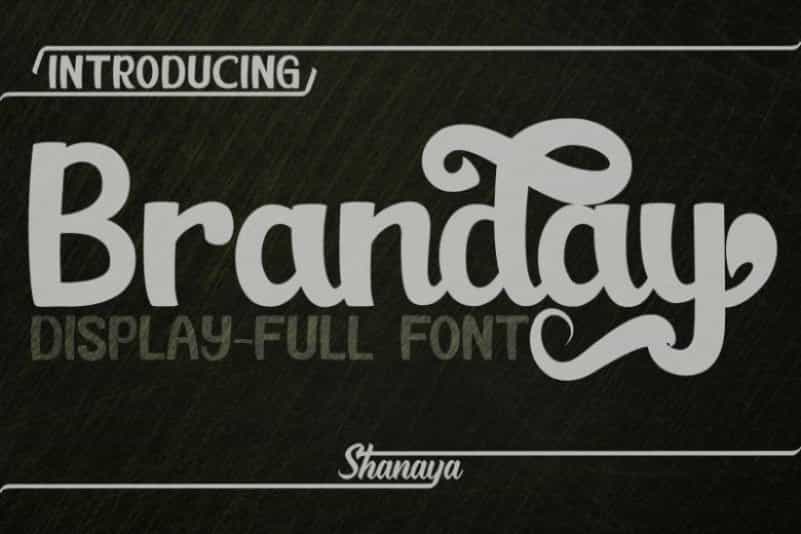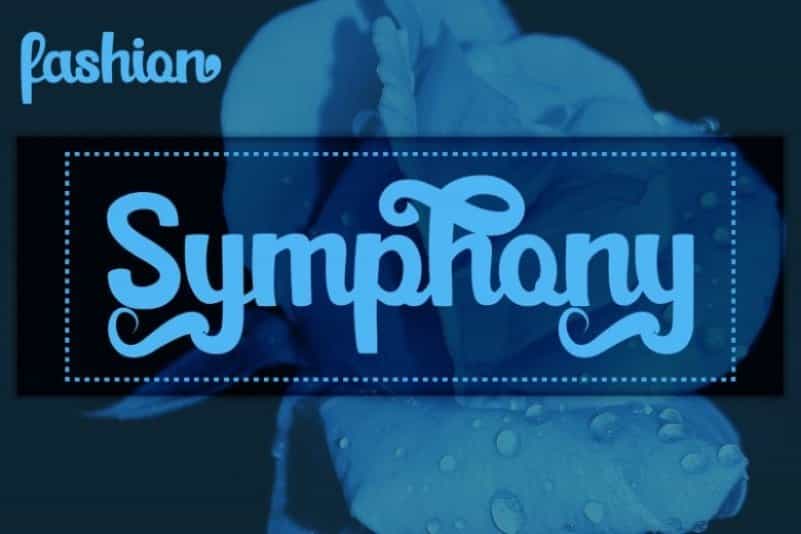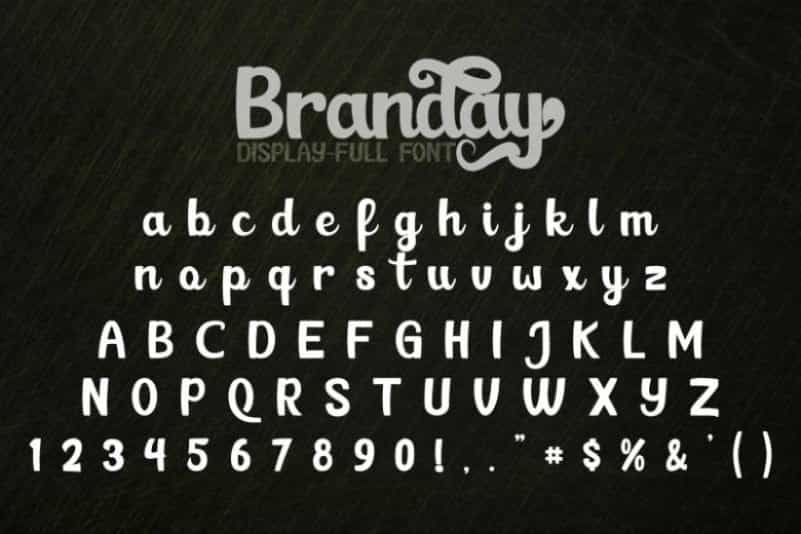
Branday Unique Display Font is perfect for logos, posters, clothes, branding, invitations, parties, and any other cool designs. Branday has a lot of alternate characters that accompany it.